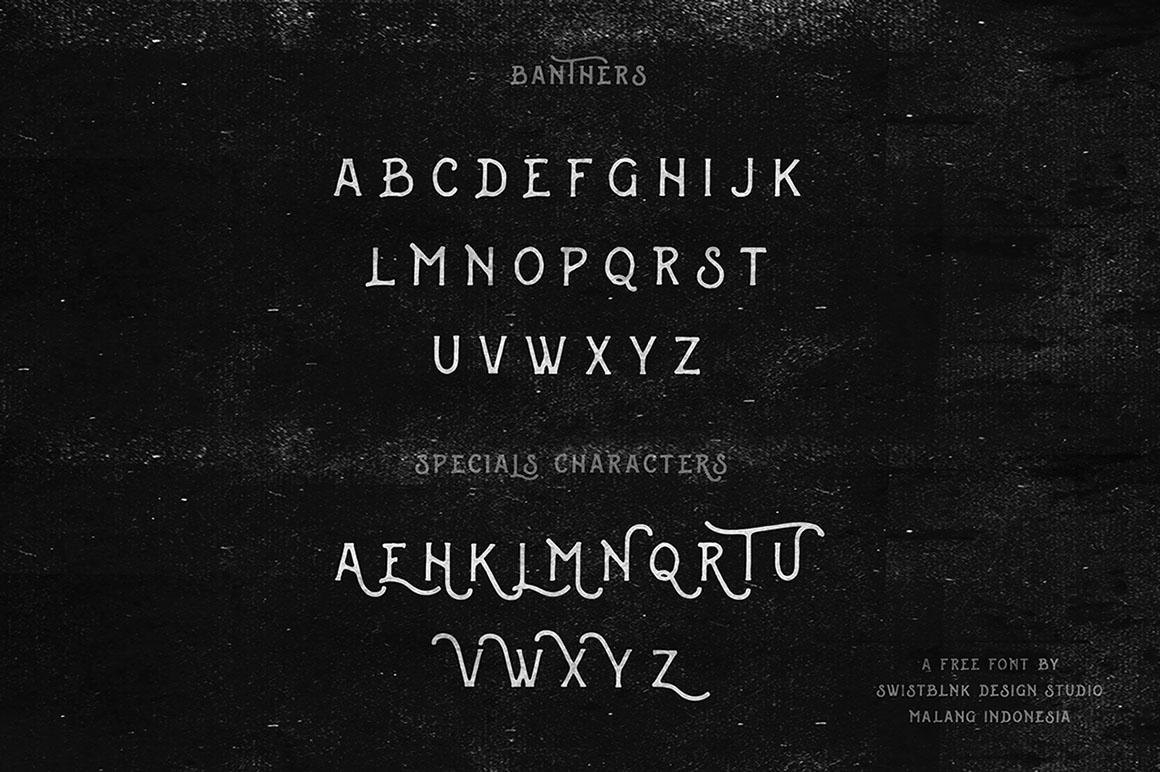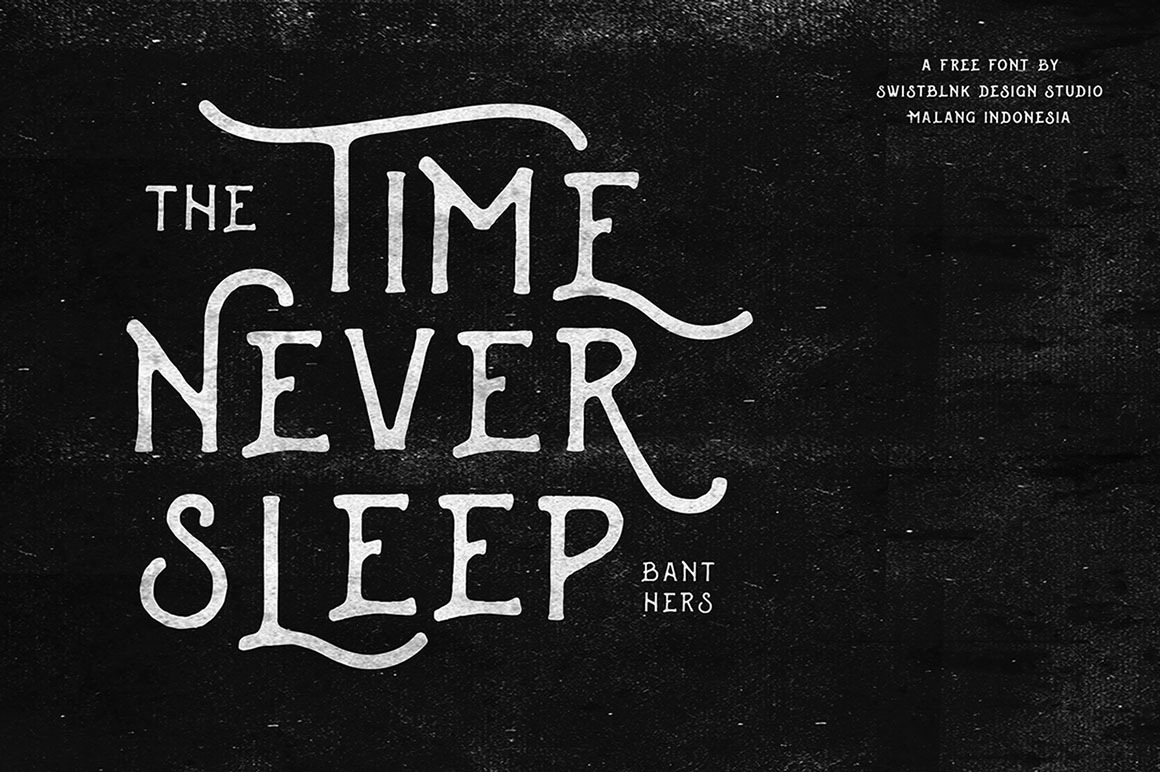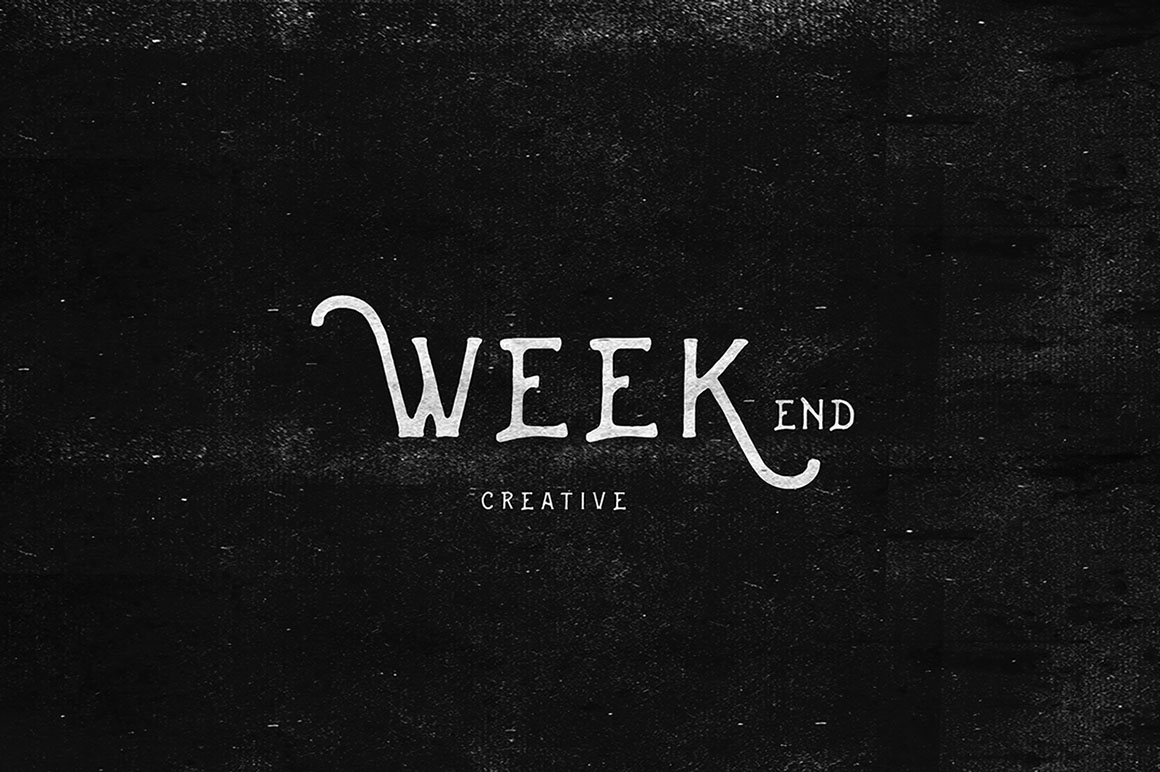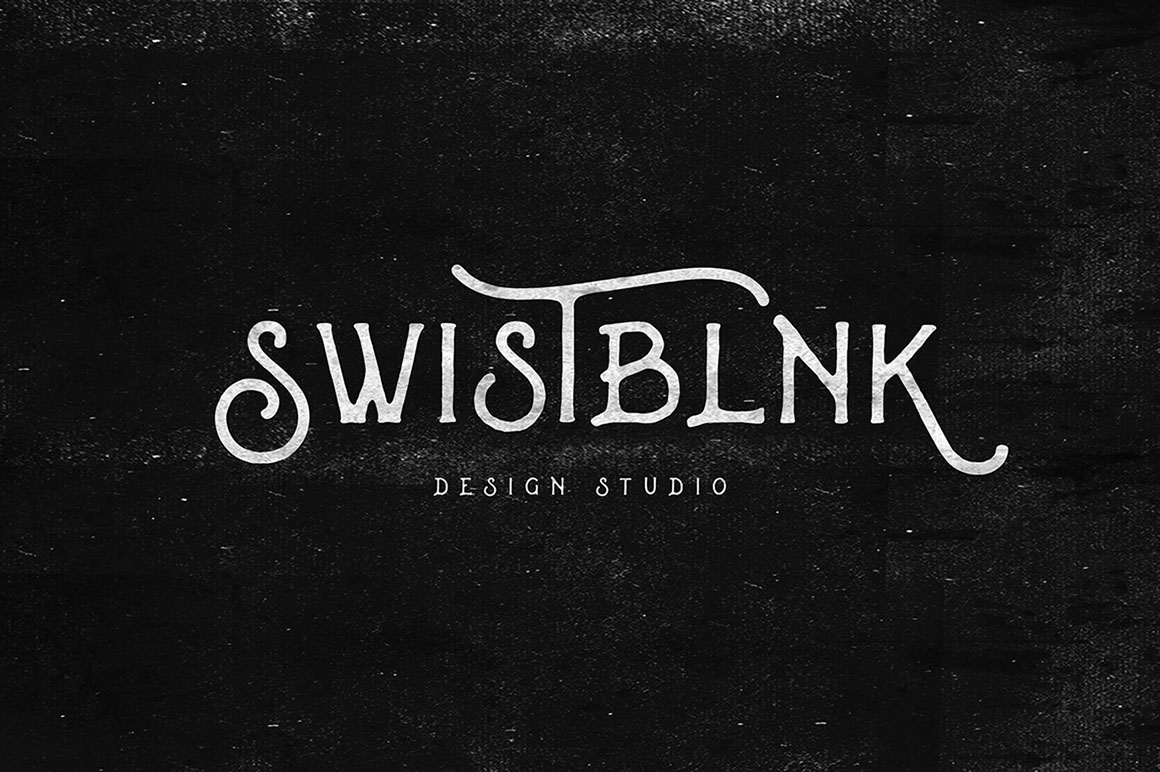
Banthers – Free Vintage Font
This retro/vintage style custom font is from Agga Swist’blnk. An all caps font / typeface with amazing vintage style. Also contained special characters. Download and enjoy 😉